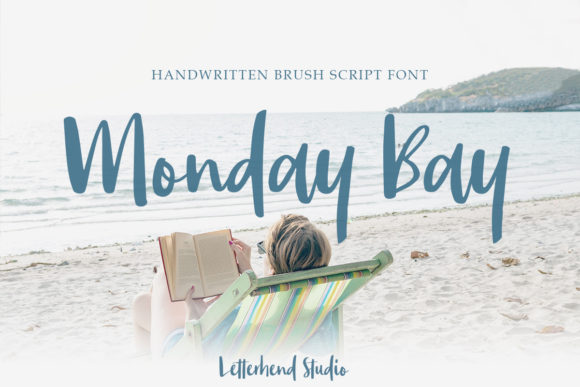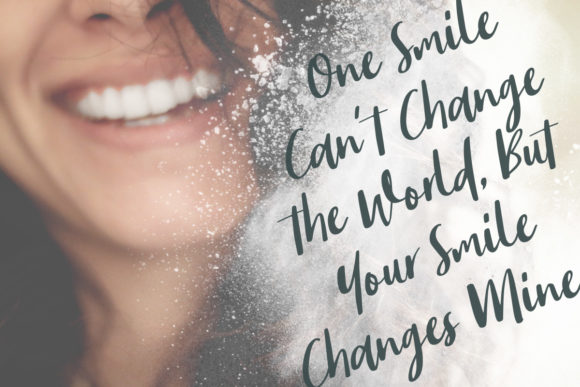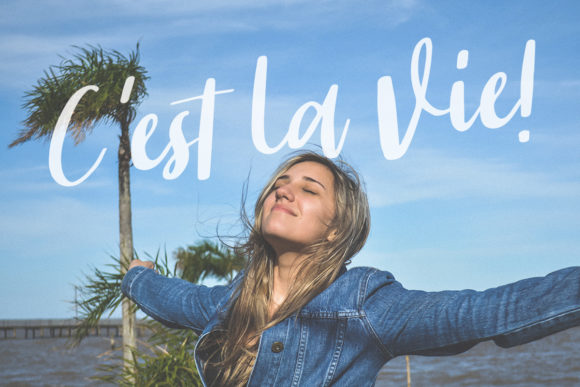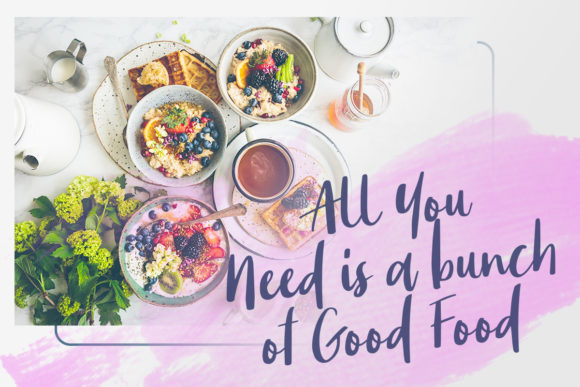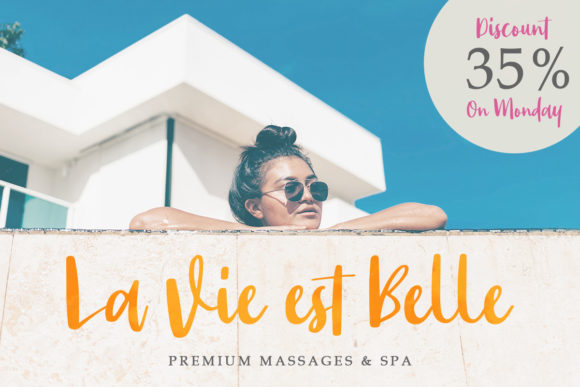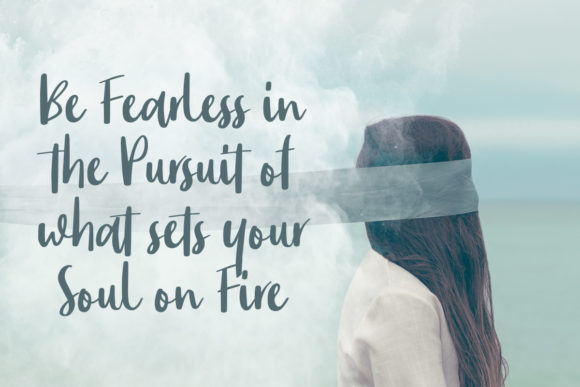
Monday Bay Font
About Monday Bay Font
Monday Bay embodies fun, quirkiness and authenticity. This enchanting handwritten font will turn any creative idea into a true standout.